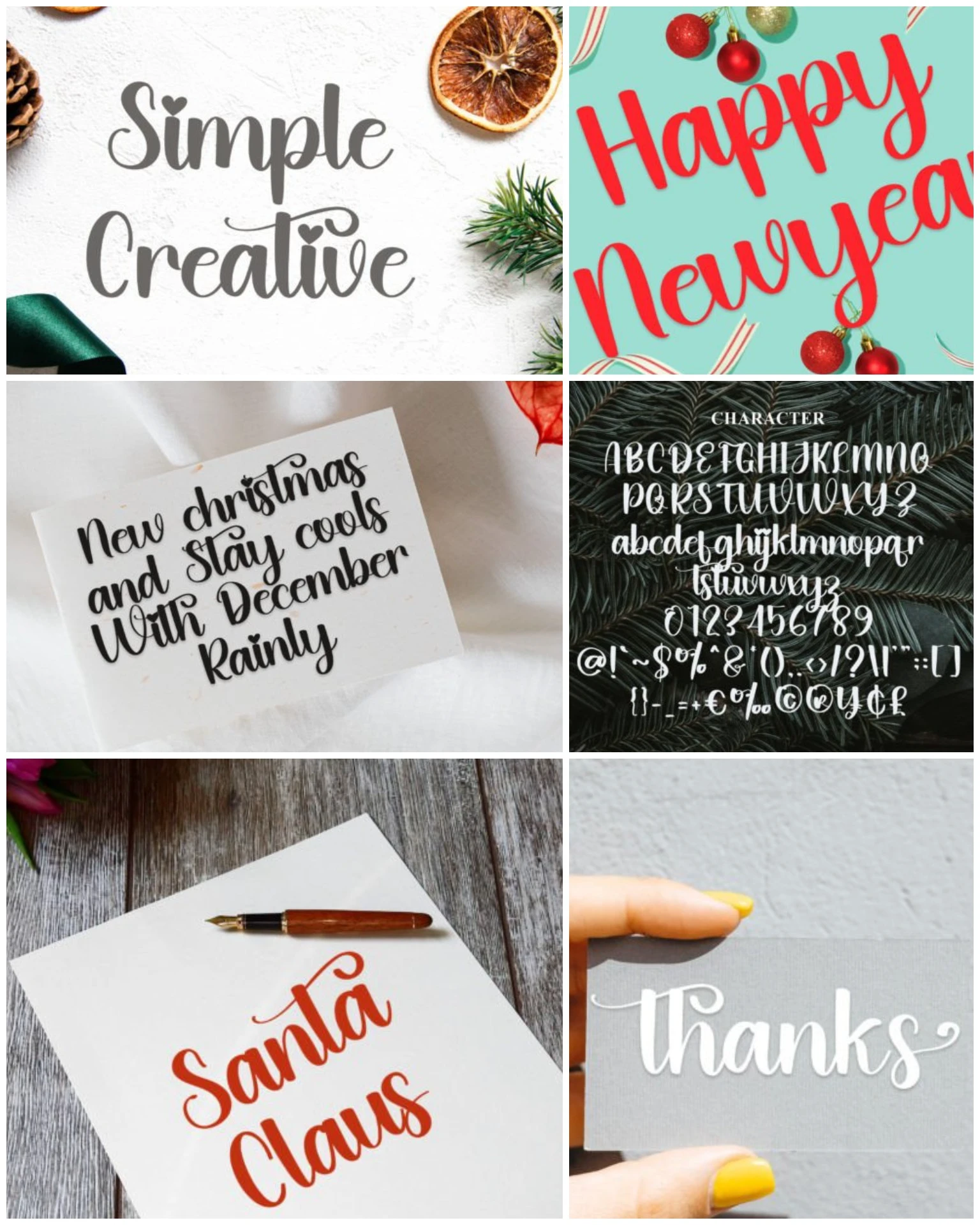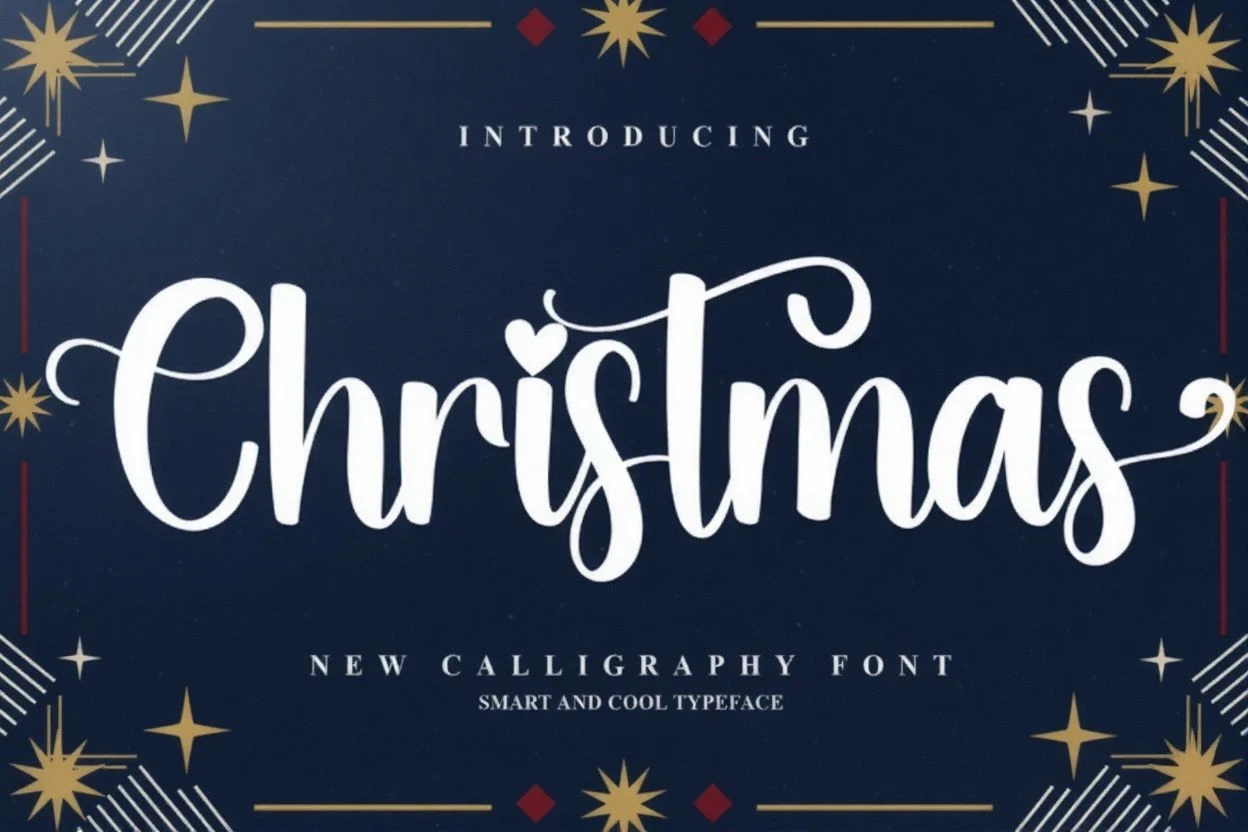
Use Christmas Font to infuse your work with holiday charm. It’s a fun, festive typeface perfect for capturing the spirit of Christmas. The decorative lines and smooth curves bring joy and style to any winter project. This font is great for holiday cards, branding, crafts, and gift wrapping, turning ordinary text into cheerful, festive moments.